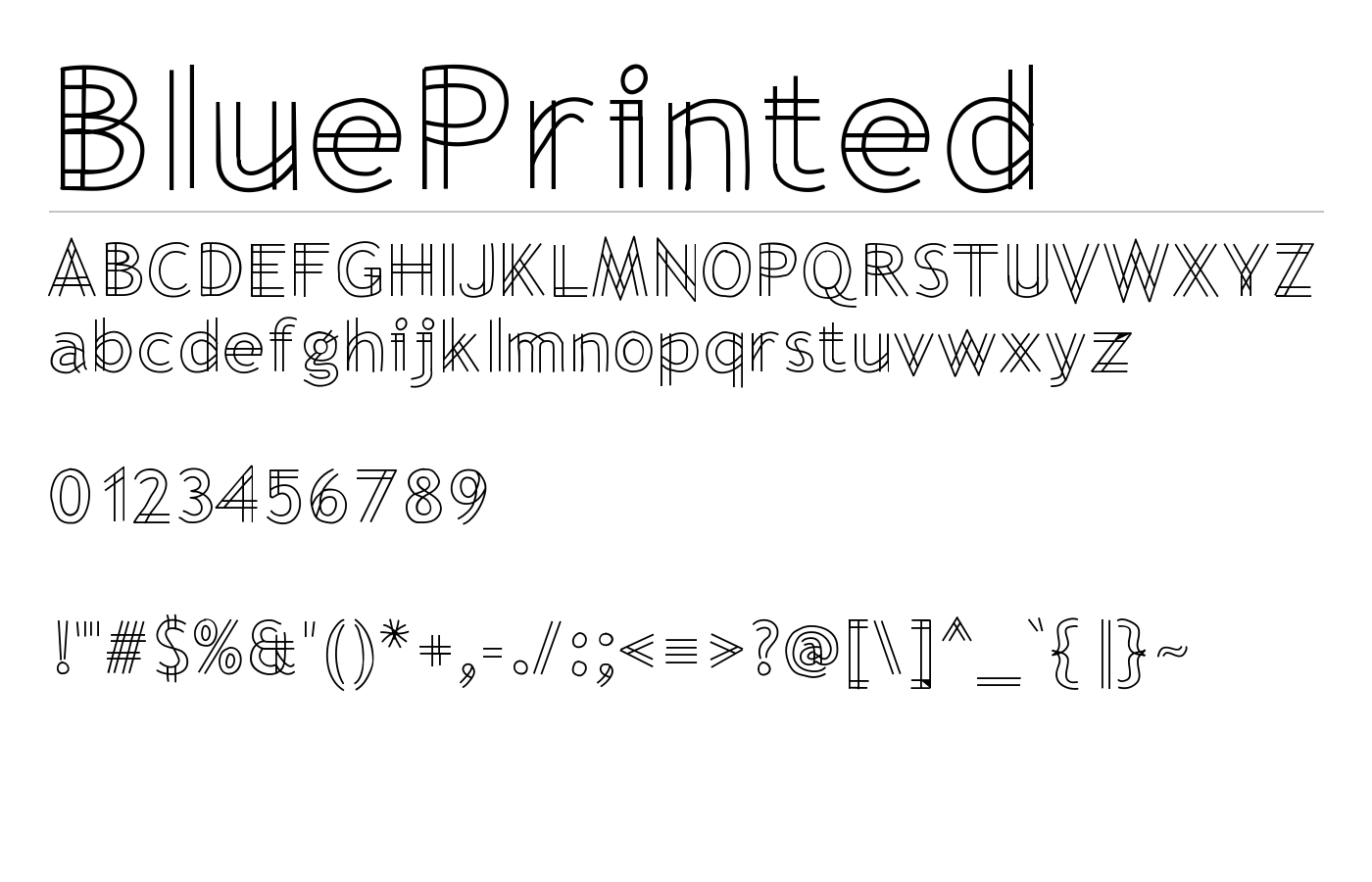
BluePrinted is a modern, geometric sans serif font that features a unique blueprint-inspired design with parallel lines creating a technical, layered effect. Its light weight and airy structure convey a sense of precision and creativity, making it ideal for architectural, engineering, or tech branding that seeks a clean yet distinctive look. This font works well in headlines, logos, and digital media where a futuristic and inventive style is desired.
BluePrinted Font
About BluePrinted Font